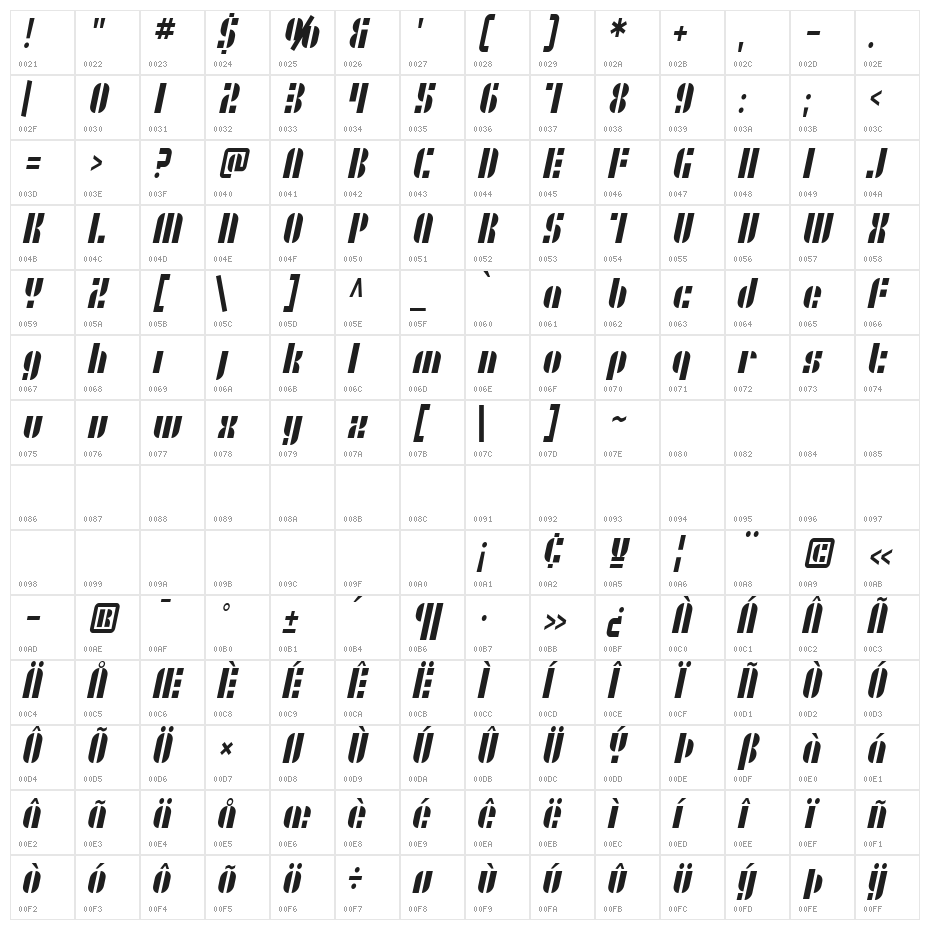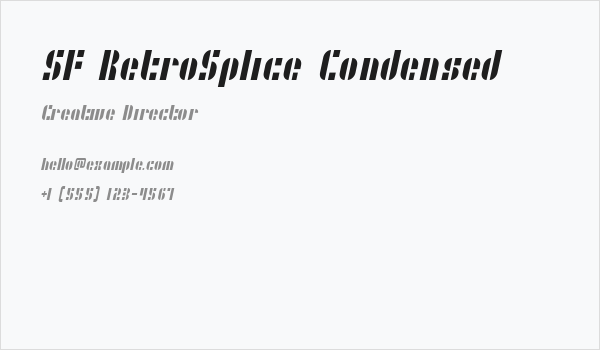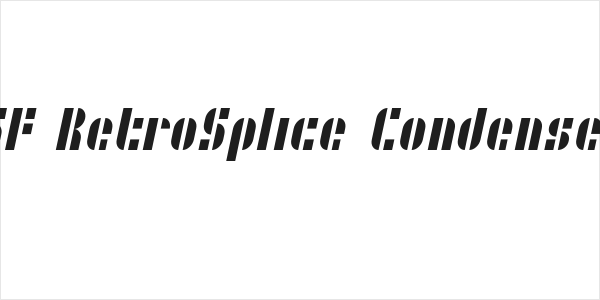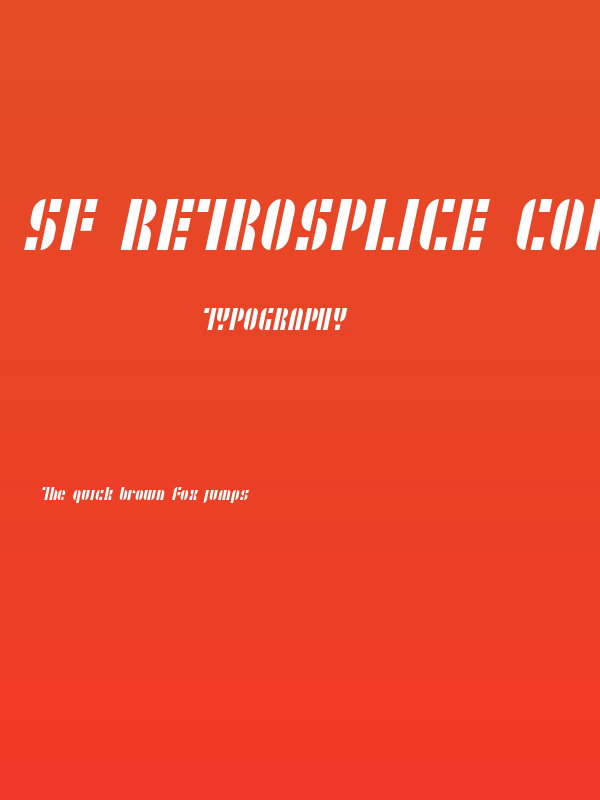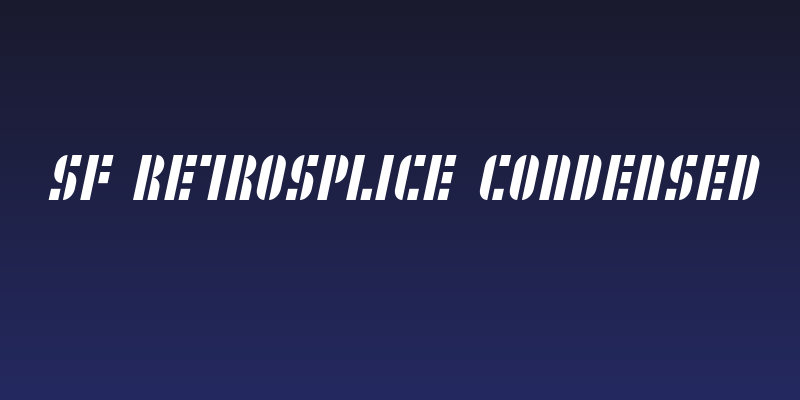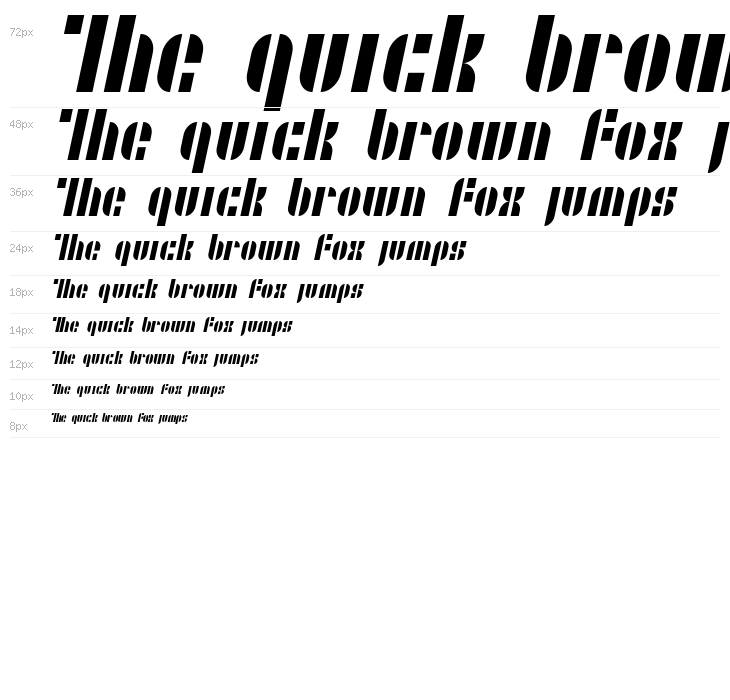
SF RetroSplice Condensed Font
SF RetroSplice Condensed Description
This font features a bold, condensed style with a distinct retro flair. The characters are heavily stylized, with sharp angles and a slanted orientation that gives them a dynamic, forward-moving appearance. The uppercase and lowercase letters maintain a consistent weight, contributing to a cohesive look. The numbers and special characters are equally bold, ensuring readability and visual impact. The font's unique design elements, such as the sliced sections in each character, add a layer of complexity and interest, making it stand out in any design project.
| Overall Style | Retro |
| Proposed Projects | Ideal for vintage-themed posters, retro branding, eye-catching headlines, and creative logo designs. |